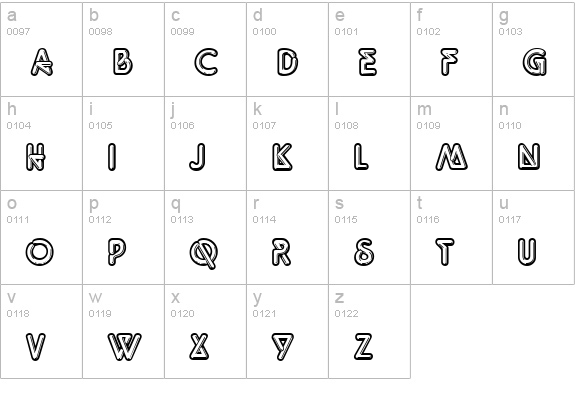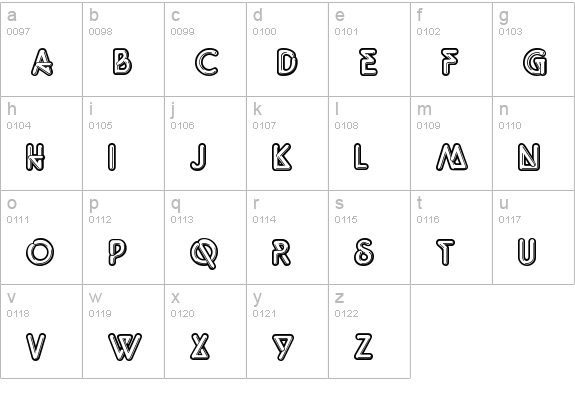
QuarkNeon Regular Font Details
QuarkNeon Regular is the standard, neutral variant in the QuarkNeon typeface family \xE2\x80\x94 well suited to general body text, paragraphs, and standard typographic work.
QuarkNeon Regular font is a modern and stylish typeface that exudes a sense of energy and vibrancy. With its sleek and clean lines, this font is perfect for adding a contemporary touch to any design project. Whether you are creating eye-catching logos, dynamic headlines, or captivating posters, QuarkNeon Regular is sure to make a lasting impression. This font features a balanced combination of sharp angles and smooth curves, resulting in a harmonious and visually appealing aesthetic. Its versatility allows it to be used across various media, from print to digital, ensuring that your message stands out in any medium. One of the best things about QuarkNeon Regular font is that it is freely available to download at FontsMarket.com. This means that you can easily access and use this font without any restrictions or limitations. Whether you are a professional designer or a hobbyist, having access to high-quality fonts for free can greatly enhance your creative projects. So why wait? Take advantage of the opportunity to elevate your designs with the captivating QuarkNeon Regular font. Download it for free at FontsMarket.com and let your creativity shine.